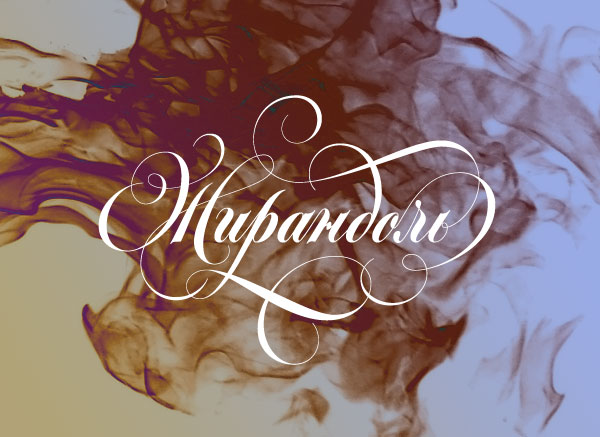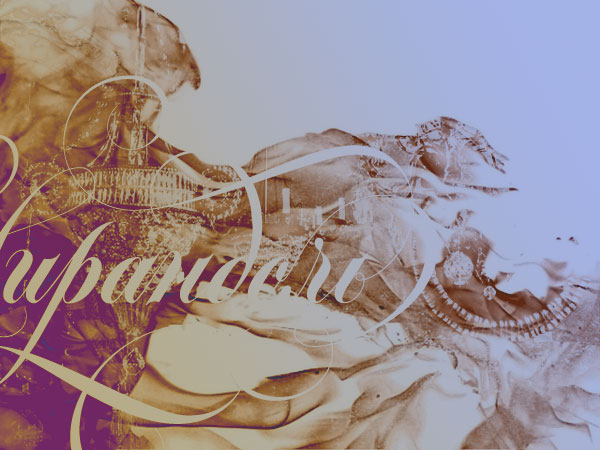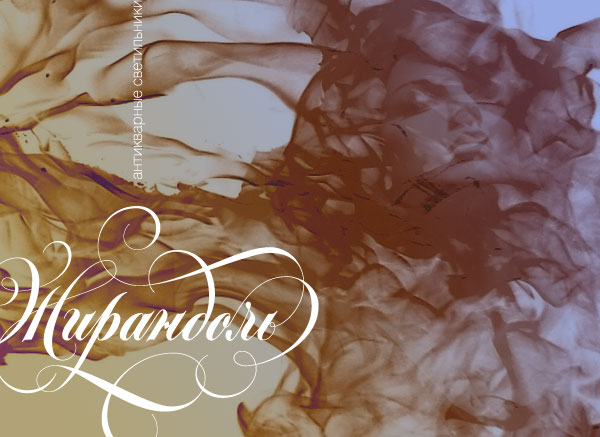
Girandole
The project of logo for the antique lamps salon on the Starij Arbat street in Moscow. Elegant baroque calligraphy forms a shape, that resembles a tracery lamp. This is a logo and a sign at the same time. Tagline is like a chain on which the lamp hangs.